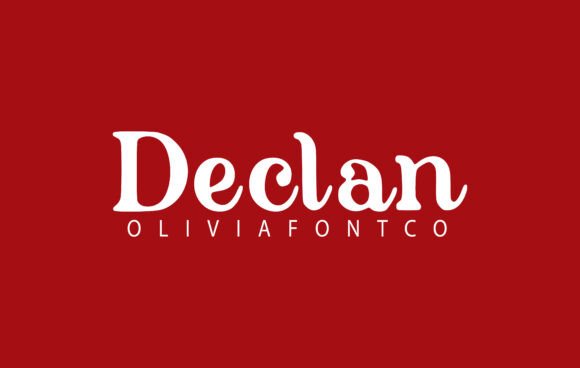
Introducing Declan Font: The Ultimate Handwritten Font with a Romantic Touch
In the world of typography, fonts play a crucial role in conveying the tone and personality of a brand or creative project. Among the numerous fonts available, Declan Font stands out as a unique and authentic handwritten font that exudes a romantic touch. Designed to be a true favorite among designers and creative enthusiasts, Declan Font has the potential to elevate your ideas to new heights. In this article, we’ll explore the features, benefits, and uses of Declan Font, and why it’s an excellent choice for your next creative project.
What is Declan Font?
Declan Font is a carefully crafted handwritten font that boasts a distinctive romantic touch. Its authentic and elegant design makes it an ideal choice for a wide range of creative projects, from magazine headlines and social media graphics to branding, wedding invitations, and more. The font’s legibility and versatility make it perfect for use as both title and body text, allowing you to maintain consistency throughout your design.
Key Features of Declan Font
- Authentic Handwritten Design: Declan Font features an authentic handwritten design that sets it apart from other fonts. Its unique and personal touch adds a level of warmth and character to your creative projects.
- Romantic Touch: The font’s romantic touch makes it perfect for designs that require a touch of elegance and sophistication. Whether you’re creating wedding invitations, romantic social media graphics, or branding materials, Declan Font is an excellent choice.
- Legibility: Declan Font is designed to be highly legible, making it suitable for use as both title and body text. Its clear and readable design ensures that your message is conveyed effectively.
- Versatility: The font’s versatility makes it perfect for a wide range of creative projects, from magazine headlines and social media graphics to branding, wedding invitations, and more.
Benefits of Using Declan Font
Using Declan Font in your creative projects offers numerous benefits. Here are a few:
- Unique and Authentic Design: Declan Font’s unique and authentic design helps your creative projects stand out from the crowd. Its distinctive romantic touch adds a level of elegance and sophistication to your designs.
- Consistency: The font’s legibility and versatility make it perfect for use throughout your design, ensuring consistency and cohesion.
- Time-Saving: With Declan Font, you can save time and effort in creating custom designs from scratch. Its pre-designed characters and glyphs make it easy to create professional-looking designs quickly.
- Professional-Looking Designs: Declan Font is designed to create professional-looking designs that rival those created by experienced designers. Its high-quality design ensures that your creative projects look polished and refined.
Use Cases for Declan Font
Declan Font is an incredibly versatile font that can be used in a wide range of creative projects. Here are some use cases:
- Magazine Headlines: Declan Font’s elegant and sophisticated design makes it perfect for magazine headlines. Its romantic touch adds a level of glamour and sophistication to your magazine covers.
- Social Media Graphics: The font’s legibility and versatility make it perfect for social media graphics, including Facebook posts, Instagram stories, and Twitter headers.
- Branding: Declan Font is an excellent choice for branding materials, including logos, business cards, and letterheads. Its unique and authentic design helps create a lasting impression on your customers.
- Wedding Invitations: The font’s romantic touch makes it perfect for wedding invitations, save-the-date cards, and other wedding-related designs.
- Cards and Stationery: Declan Font is also suitable for creating cards, including greeting cards, birthday cards, and holiday cards.
Tips for Using Declan Font Effectively
To get the most out of Declan Font, here are some tips:
- Use it as a Title Font: Declan Font’s elegant and sophisticated design makes it perfect for use as a title font. Use it to create attention-grabbing headlines and titles.
- Pair it with Other Fonts: Declan Font can be paired with other fonts to create a unique and visually appealing design. Experiment with different font combinations to find the perfect match.
- Adjust the Font Size: Adjusting the font size can help create visual hierarchy and emphasis in your design. Use larger font sizes for titles and smaller font sizes for body text.
- Experiment with Colors: Declan Font looks great in a variety of colors. Experiment with different colors to find the perfect match for your design.
In conclusion, Declan Font is an authentic handwritten font with a romantic touch that is perfect for a wide range of creative projects. Its unique and elegant design makes it an excellent choice for magazine headlines, social media graphics, branding, wedding invitations, and more. With its legibility, versatility, and professional-looking design, Declan Font is sure to become a favorite among designers and creative enthusiasts.